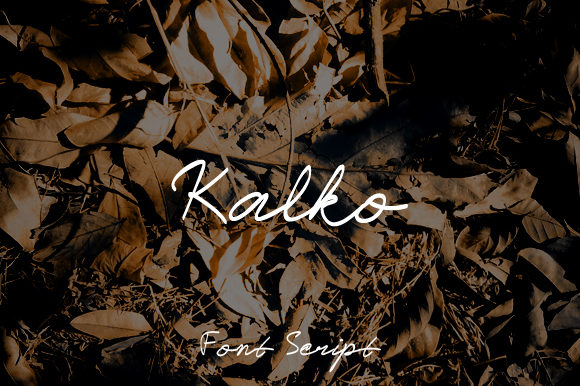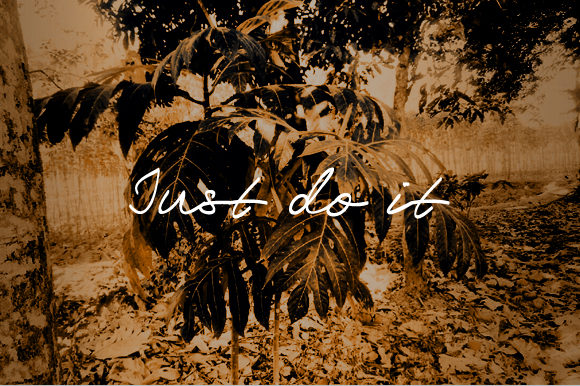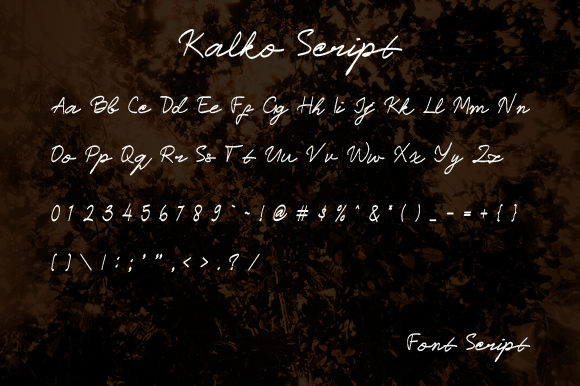
HomeScript FontsKalko Font Script Fonts Kalko Font FacebookXPinterestWhatsApp Kalko Font Poster 2 Kalko Font Poster 3 About Kalko Font Kalko is a fun and fresh script with a casual vibe. Get inspired by its unique charm! DOWNLOAD NOW People also explored Rochester Font Anthonio Script Font Gullia Font Hello Sister Font Happy Dance Font Triple Shots Handwritten Font Font Kiberul Font Trebloem Font Mind Your Head Font 353 0 TagsKalko Font Previous articleThemysion FontNext articleHeima Font LEAVE A REPLY Cancel reply Comment: Please enter your comment! Name:* Please enter your name here Email:* You have entered an incorrect email address! Please enter your email address here Website: Save my name, email, and website in this browser for the next time I comment. Personal Use Free Calling Personal Use Free Read more about this font Velasco Personal Use Free Read more about this font Leorio Personal Use Free Read more about this font Houstonville Personal Use Free Read more about this font BLOG Where to Buy American Fonts Online in 2024 Where to Buy American Fonts Online: The Ultimate Guide for 2024 Looking for the perfect American font to elevate your design projects? You're in the... Modern Sans-Serif Fonts That Brands Love in 2025 Fonts That Capture the Spirit of New York City Best Fonts for YouTube Videos: Make Your Thumbnails Stand Out